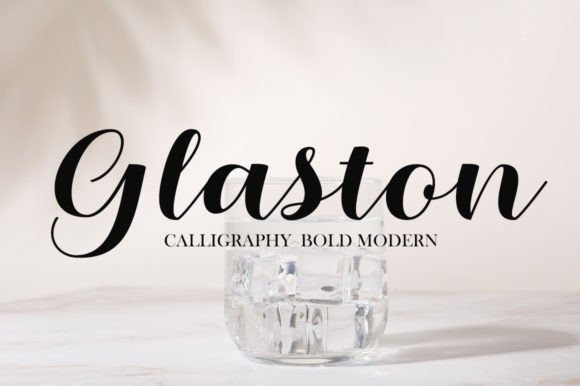
Glaston Font
Glaston Font with handwriting and script style makes this font look elegant, natural, stylish.
Glaston would be perfect for invitations, logos & branding, photography, advertising, watermarks, social media posts, product packaging, product designs, labels, wedding designs, stationery, special events or anything else that requires a taste for handwriting.